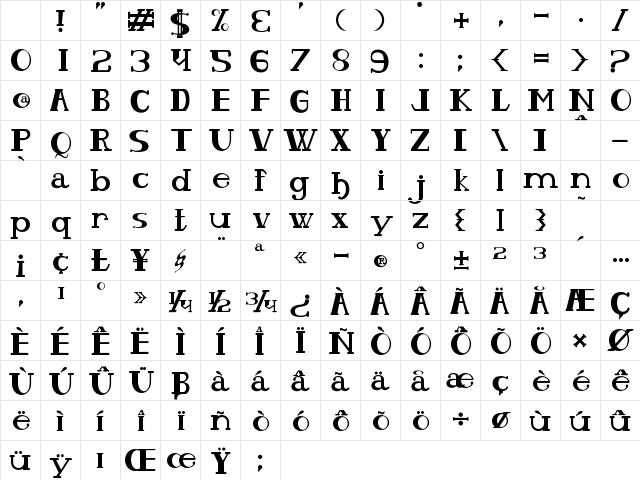
Complete Olho De Peixe Regular glyph index. Displaying only characters natively supported by Olho De Peixe Regular font.
Olho De Peixe is a composed and adaptable typeface that performs quietly and consistently across a wide range of design contexts.